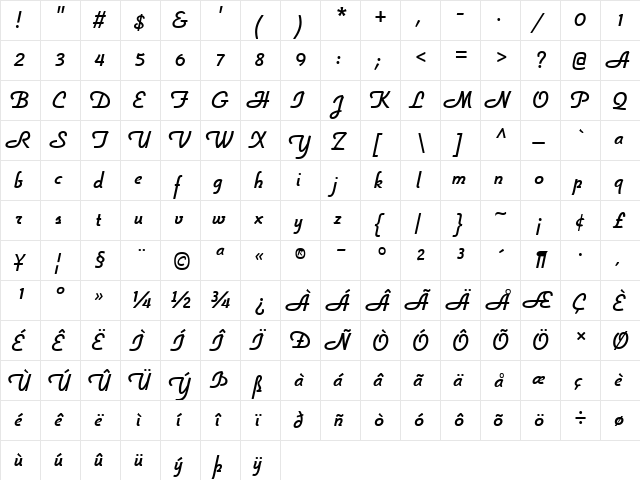
Lonsdale Regular Font Preview
Lonsdale Regular
Design Context for Lonsdale Typeface
Lonsdale is a composed and adaptable typeface that performs quietly and consistently across a wide range of design contexts.